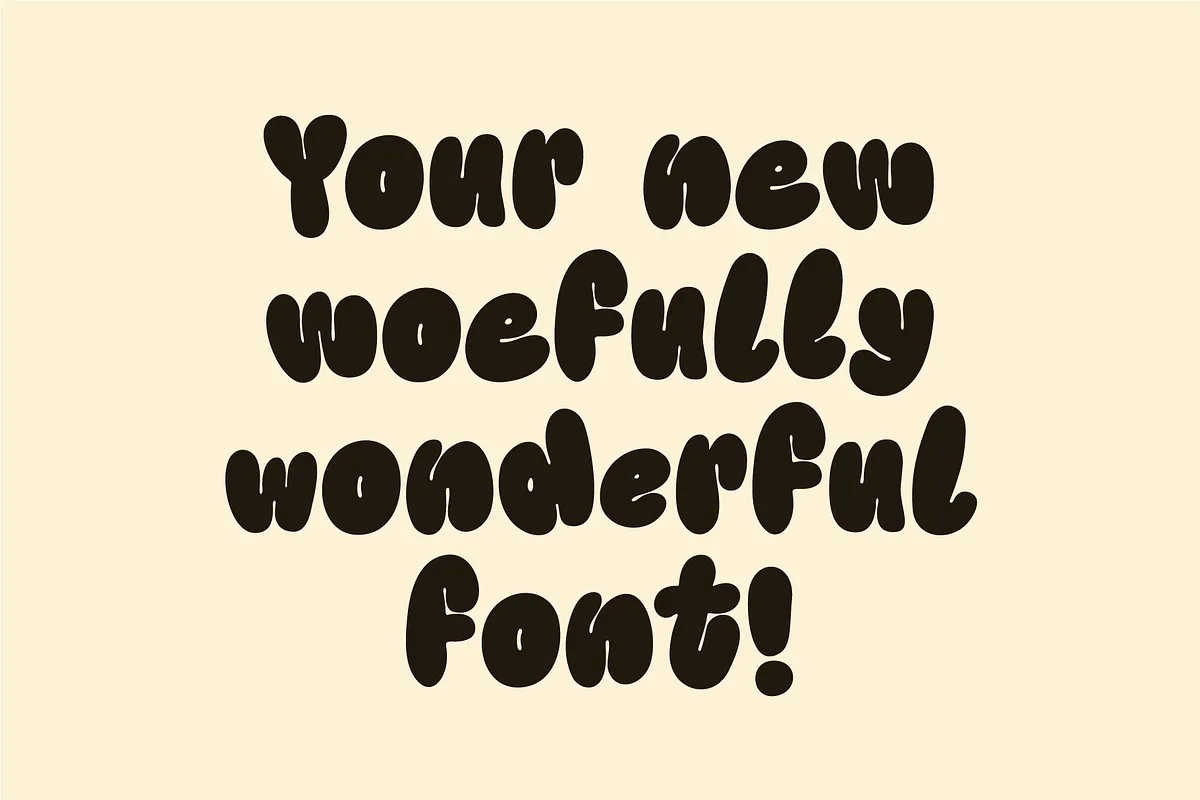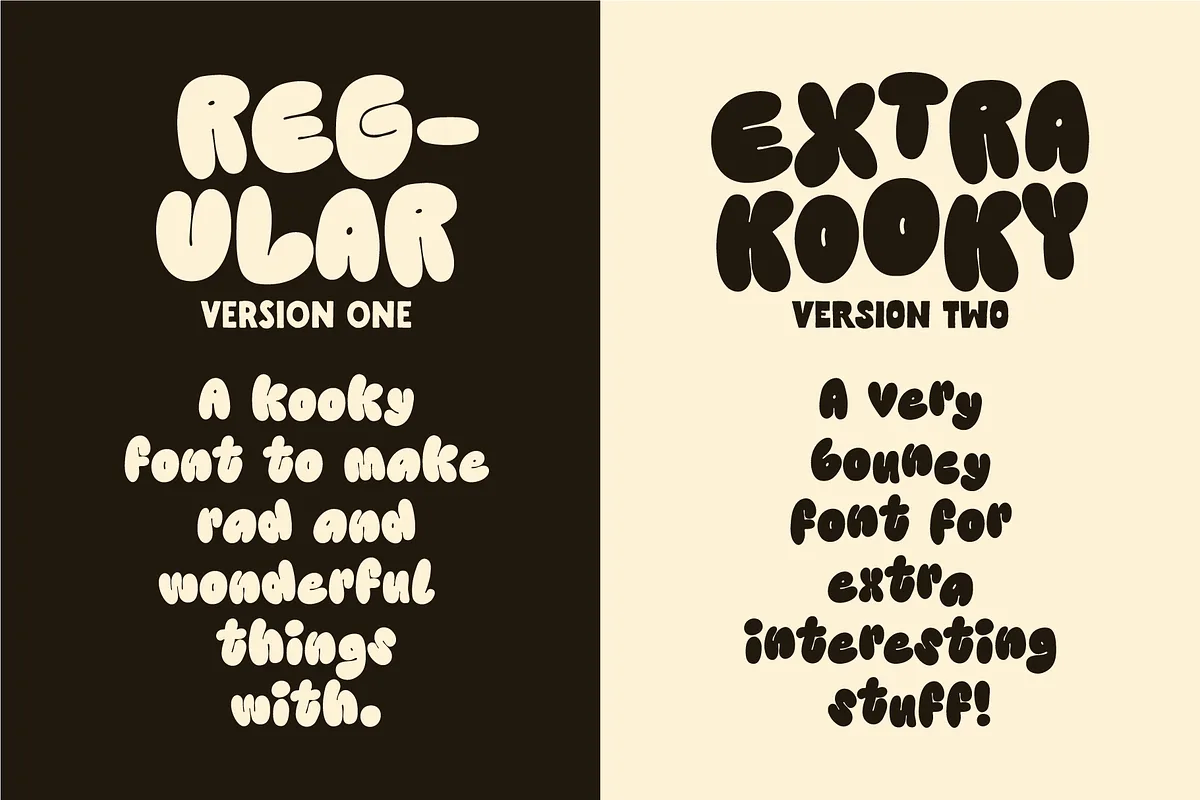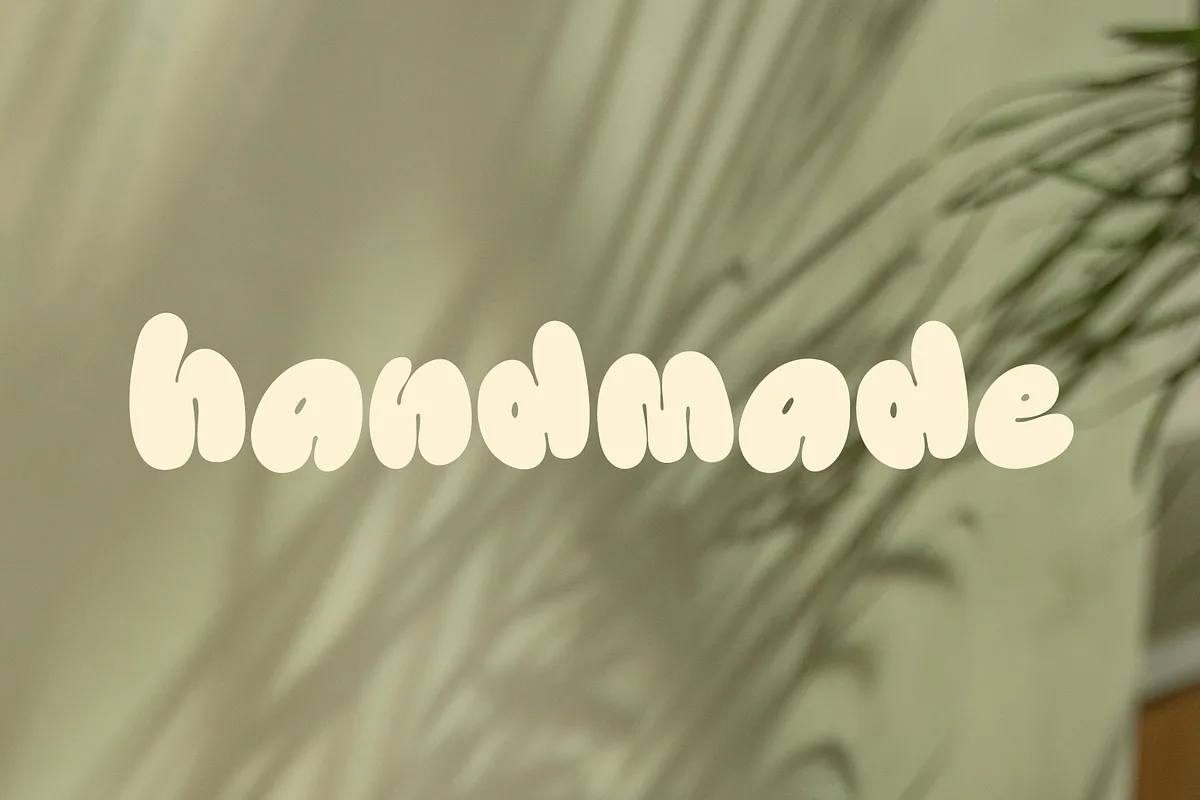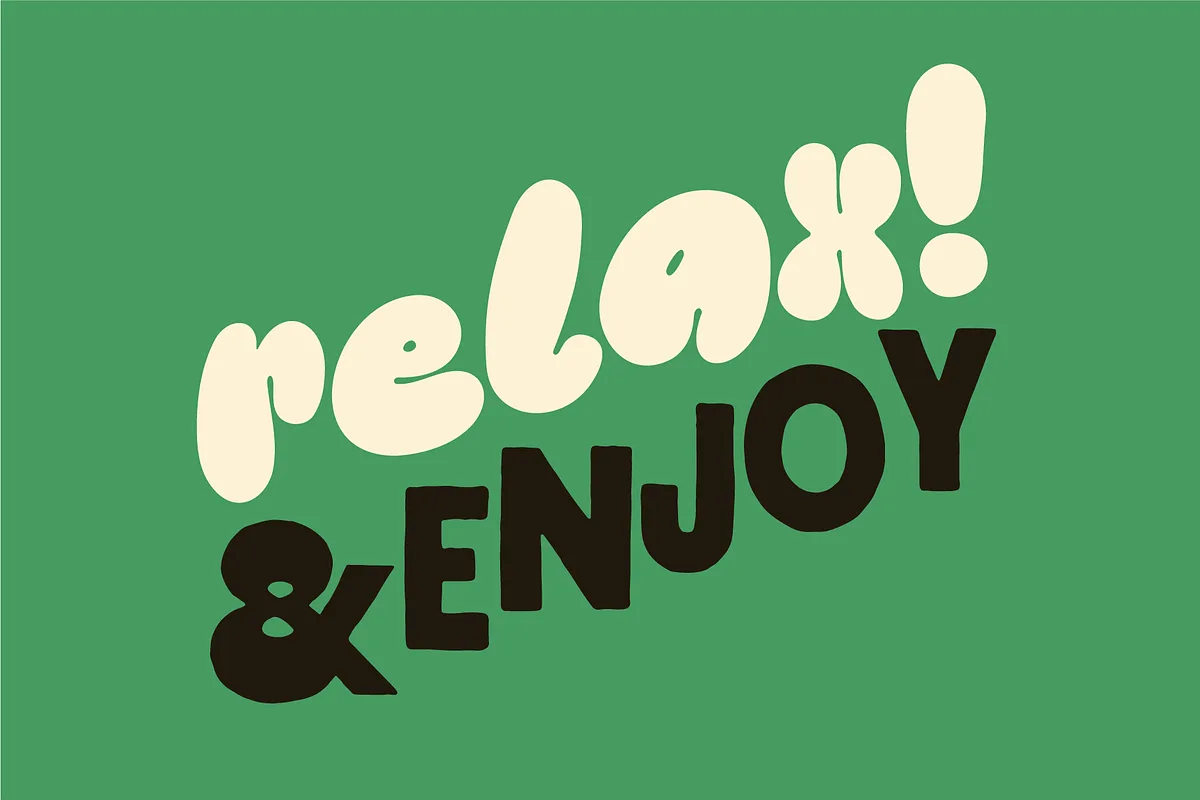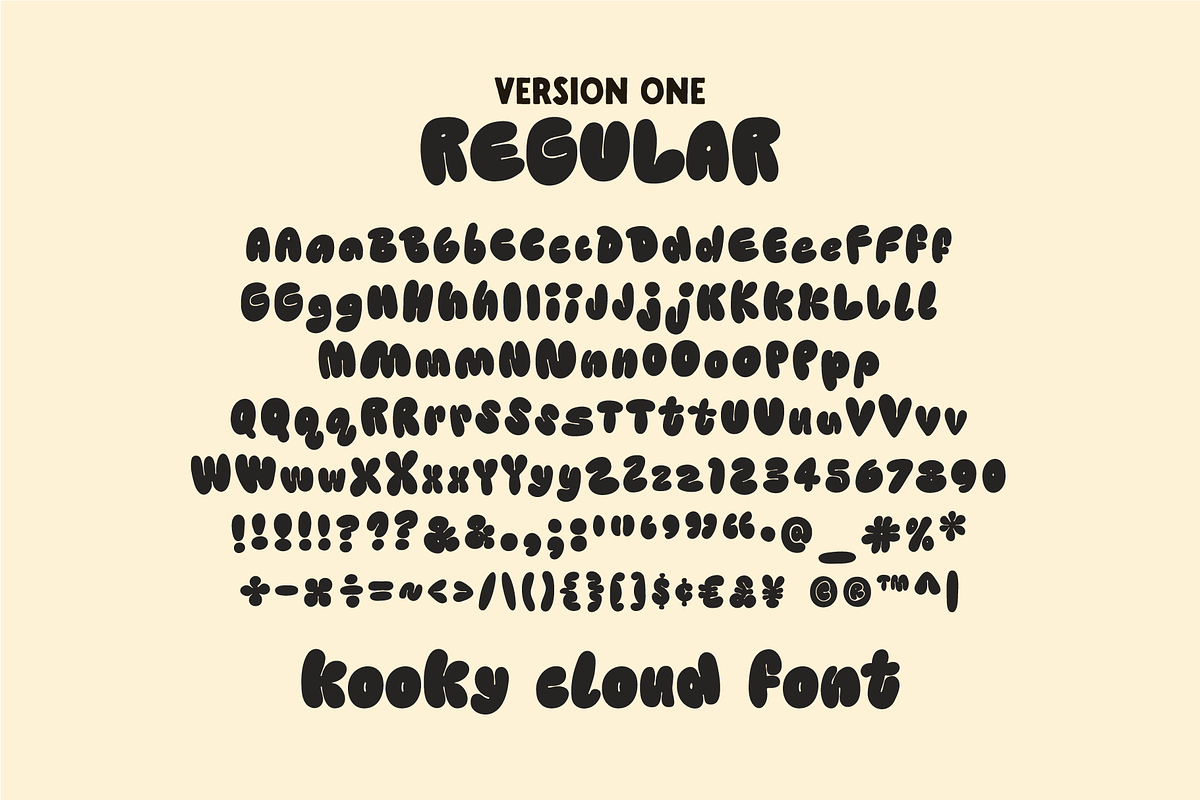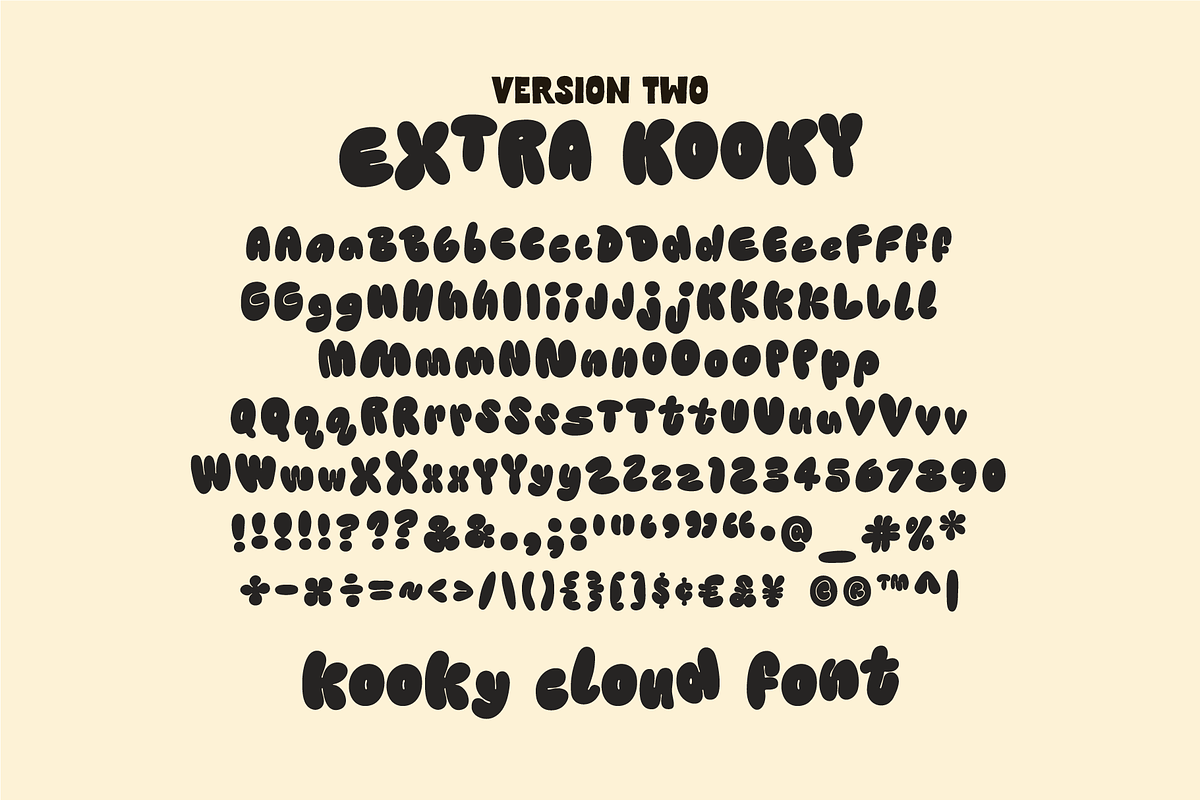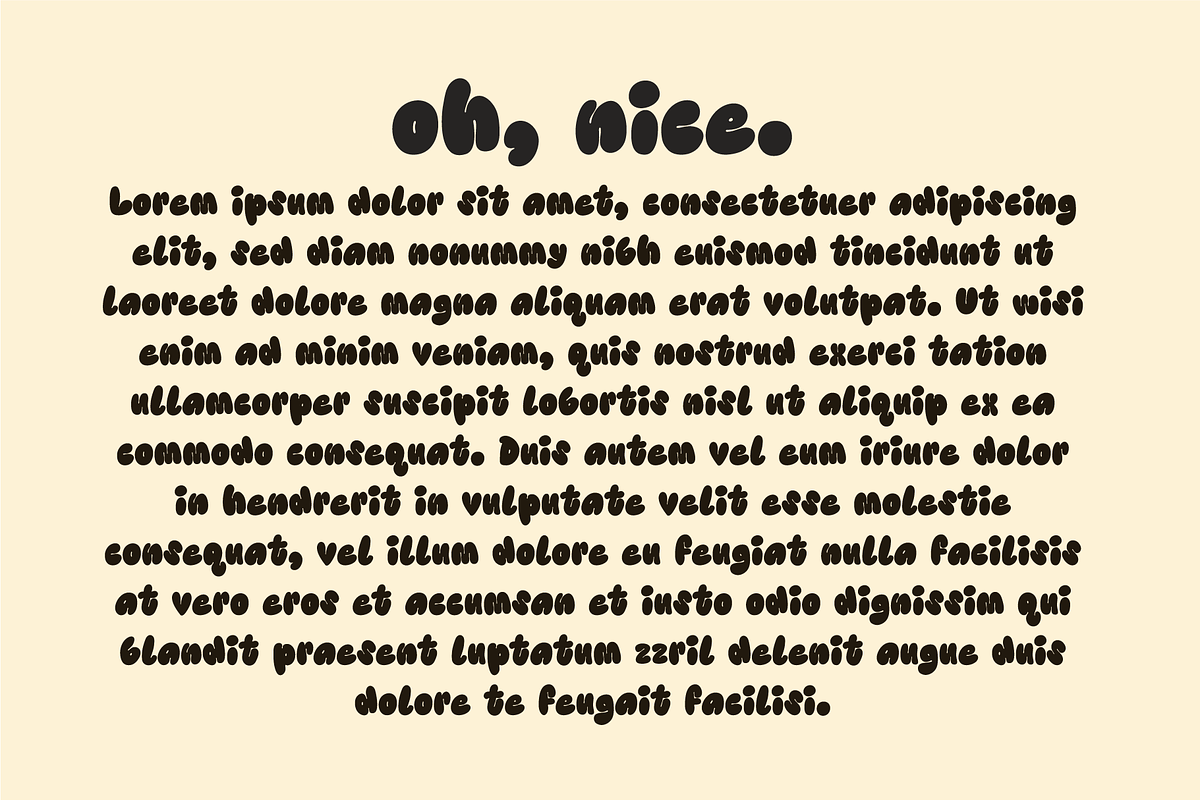
Kooky Cloud Font is a hand-lettered font. It’s oddly bubbly and woefully wonderful. Includes an alternate letter for uppercase and lowercase Aa-Zz. Plus Alternates for !,?, and &. Looks great for logos, quotes, art, signs, titles, and a handmade touch.
Kooky Cloud Bubble Font Free Preview